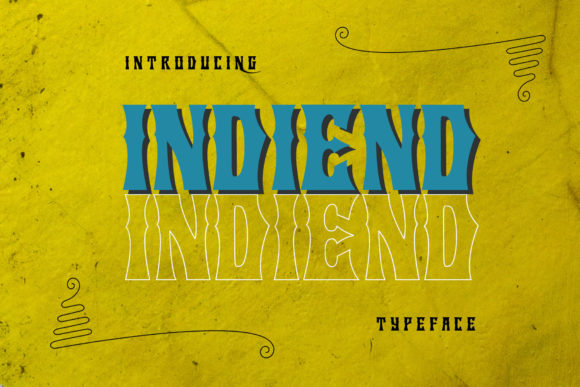
Indiend: A Bold Font for Creative Expression
Indiend is a bold and thick lettered display font that stands out with its unique, original look. Designed to catch the eye, it’s perfect for those who want to add a strong visual impact to their projects. Whether you're creating letterheads, titles, or stationery, Indiend offers a versatile and stylish option that appeals to a wide range of creative needs.
What Is Indiend?
Indiend is more than just a font—it's a statement. With its bold and thick lettering, it delivers a powerful presence on any page. The font is designed for display purposes, making it ideal for headlines, logos, and other prominent text elements. Its clean and modern design ensures readability while maintaining an artistic flair.
Why Choose Indiend?
One of the main reasons people choose Indiend is its ability to convey confidence and strength. The thick, bold strokes make it stand out in both print and digital formats. This makes it particularly useful for branding, marketing materials, and creative projects where visual impact is key.
Additionally, Indiend has a timeless appeal that works well across various contexts. It doesn’t go out of style quickly, which means you can use it consistently over time without worrying about trends changing. This reliability makes it a great choice for long-term projects like websites, brochures, and packaging.
Where Can You Use Indiend?
Indiend is incredibly versatile and can be applied in numerous ways. Here are some practical examples:
- Letterheads: Use Indiend for your company letterhead to create a professional yet distinctive impression.
- Titles: Apply it to blog posts, articles, or social media content to grab attention immediately.
- Stationery: Incorporate it into invitations, thank-you notes, or greeting cards for a personal touch.
- Branding: Use it for logos, taglines, and promotional materials to reinforce brand identity.
- Digital Content: Employ it in website headers, banners, and email subject lines for better engagement.
Who Benefits from Using Indiend?
Indiend is suitable for a wide audience, including professionals, entrepreneurs, bloggers, educators, and hobbyists. Beginners may find it especially appealing because of its simplicity and clarity. Even if you’re not a designer, Indiend’s bold nature helps your text speak louder and more clearly.
For small business owners, Indiend can help elevate the visual appeal of marketing materials without requiring advanced design skills. Freelancers and creatives can use it to enhance their portfolios or client presentations. Educators might find it useful for creating visually engaging lesson plans or handouts.
Considerations Before Using Indiend
Before deciding to use Indiend, there are a few important factors to consider:
- Readability: While Indiend is bold and striking, ensure it remains legible in different sizes and backgrounds. Avoid using it in small text or on dark backgrounds.
- Consistency: Use Indiend consistently across all your materials to maintain a cohesive brand image.
Practical Tips for Using Indiend
To get the most out of Indiend, follow these simple tips:
- Pair It Wisely: Combine Indiend with a lighter, more readable font for body text to balance the design.
- Use It Sparingly: Reserve Indiend for headings and titles rather than large blocks of text.
- Test It Out: Preview your designs on different devices and screens to ensure the font looks good everywhere.
- Explore Variations: If available, experiment with different weights or styles of Indiend to suit your project’s needs.
Conclusion
Indiend is a powerful tool for anyone looking to make a strong visual statement. Its bold and thick lettering adds character and professionalism to a variety of creative projects. Whether you're a beginner or a seasoned professional, Indiend offers a unique way to express your ideas with confidence and style.